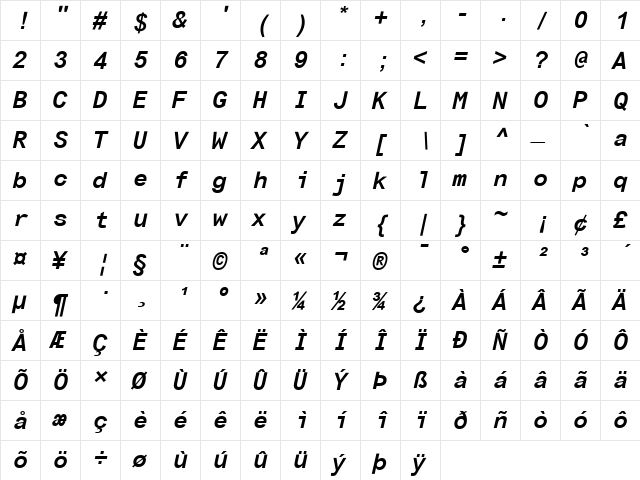
Arial Monospaced MT Italic
Design Context for Arial Monospaced MT Typeface
Arial Monospaced MT brings the precise, column-aligned rhythm of monospaced typography to designs that value technical clarity and systematic order. The dynamic lean of this cut emphasises speed and emphasis in any layout.
Pro Tip: Pair Arial Monospaced MT with a proportional sans for UI contexts where code-style labels and regular body copy need to coexist.